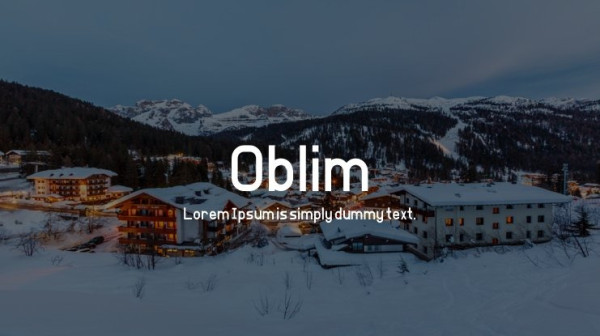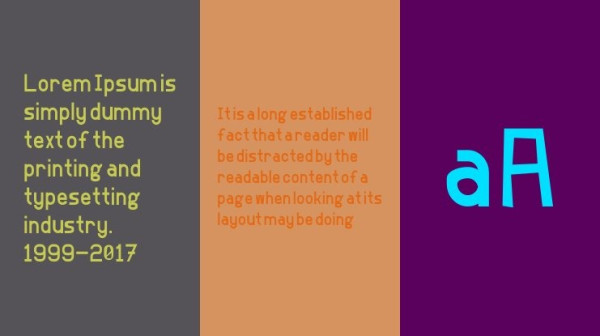
Oblim Font, is a sans serif stunning when combined or separately. This sans serif font style is legible and stunningly designed.
Oblim Font
| Designer Name: | Gracian Gonzalez-Clemente |
| Classification: | Display Fonts, Sans Serif Fonts |